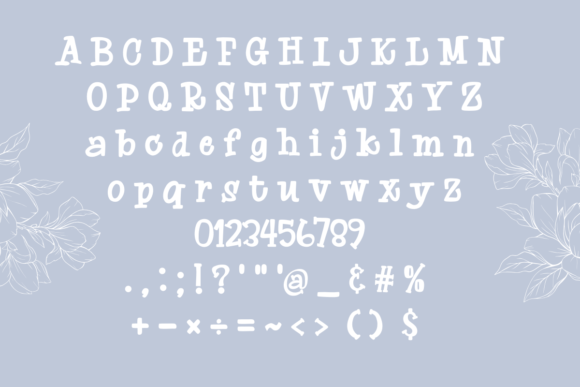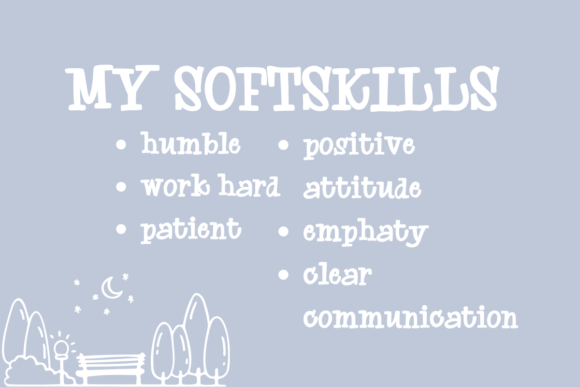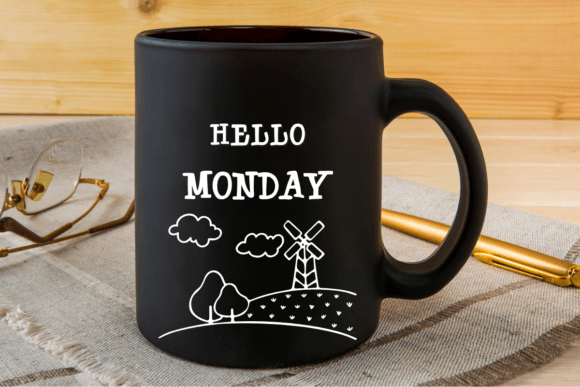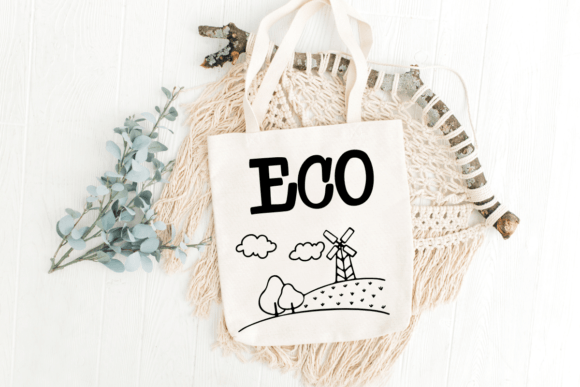
Cousin Font: The Perfect Handwritten Style for Your Creative Projects
Are you looking for a beautiful, handwritten font to add a personal touch to your designs? Look no further than Cousin Font! This lovely font is perfect for a variety of creative projects, from taking notes and writing diaries to making greeting cards and more. In this article, we’ll explore the features and benefits of Cousin Font, and show you how to use it to take your designs to the next level.
What is Cousin Font?
Cousin Font is a handwritten font that is designed to look like it was written with a pen or pencil. It has a warm, friendly feel that makes it perfect for a wide range of applications. Whether you’re creating a personal project or a professional design, Cousin Font is a great choice.
Uses for Cousin Font
Cousin Font is a versatile font that can be used for many different types of projects. Here are some ideas to get you started:
- Note-taking and journaling: Cousin Font is perfect for taking notes, writing in a diary, or creating a journal. Its handwritten style makes it easy to read and adds a personal touch to your writing.
- Greeting cards and invitations: Create beautiful, one-of-a-kind greeting cards and invitations with Cousin Font. It’s perfect for birthdays, holidays, weddings, and more.
- Banners and signs: Use Cousin Font to create eye-catching banners and signs for parties, events, or promotions.
- Social media posts: Add a personal touch to your social media posts with Cousin Font. It’s perfect for creating engaging, handwritten-style text overlays.
- Mugs, shirts, and other products: Cousin Font is a great choice for designing custom products like mugs, shirts, and tote bags.
- Stationery and paper goods: Create beautiful stationery, notebooks, and paper goods with Cousin Font.
Benefits of Cousin Font
Cousin Font offers many benefits for designers and crafters. Here are a few:
- Unique and personal style: Cousin Font adds a personal touch to your designs, making them stand out from the crowd.
- Easy to read: Cousin Font is clear and easy to read, making it perfect for body text and other applications where readability is important.
- Versatile: Cousin Font can be used for a wide range of projects, from personal to professional.
- High-quality: Cousin Font is a high-quality font that is designed to look great in any application.
Tips for Using Cousin Font
Here are a few tips for using Cousin Font in your designs:
- Experiment with different colors: Cousin Font looks great in a variety of colors, so don’t be afraid to experiment and find the perfect hue for your project.
- Mix and match with other fonts: Cousin Font pairs well with other fonts, so try combining it with a bold font for headings or a sans-serif font for body text.
- Add embellishments: Cousin Font is a great base for adding embellishments like doodles, illustrations, or graphics.
- Use it for titles and headings: Cousin Font is perfect for titles and headings, adding a personal touch to your designs.
Cousin Font is a beautiful, handwritten font that is perfect for a wide range of creative projects. Its unique and personal style, ease of use, and versatility make it a great choice for designers and crafters. Whether you’re creating a personal project or a professional design, Cousin Font is a great choice. So why not give it a try and see what amazing designs you can create?
Cousin Font is a great addition to any designer’s toolkit. Its unique and personal style, ease of use, and versatility make it perfect for a wide range of creative projects. So why not give it a try and see what amazing designs you can create?